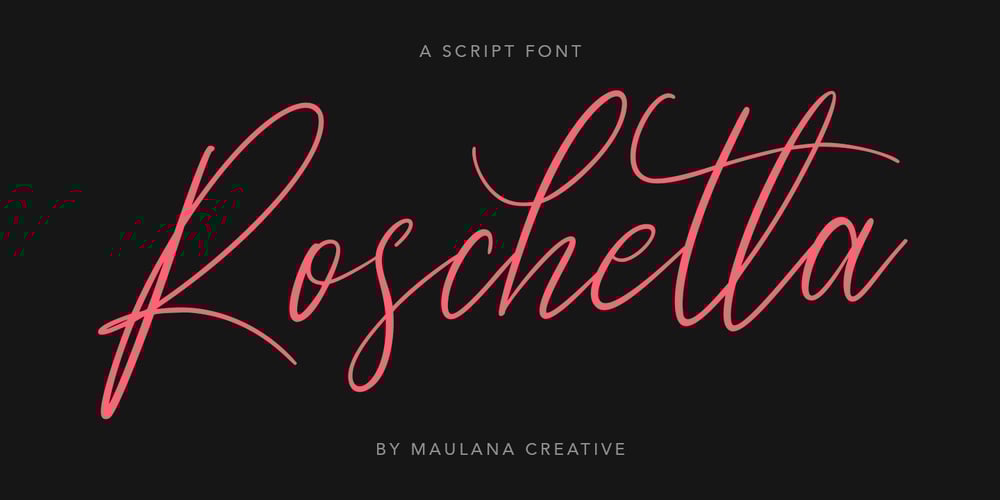
Roschetta Font Family was designed by Gilang Maulana and published by Maulana Creative. Roschetta contains 1 styles and family package options. Give your designs an authentic handcrafted feel. Roschetta is perfectly suited for signatures, stationery, logos, typography quotes, magazines or book covers, website headers, clothing, branding, packaging design and more.Thanks for use this font ~ Maulana